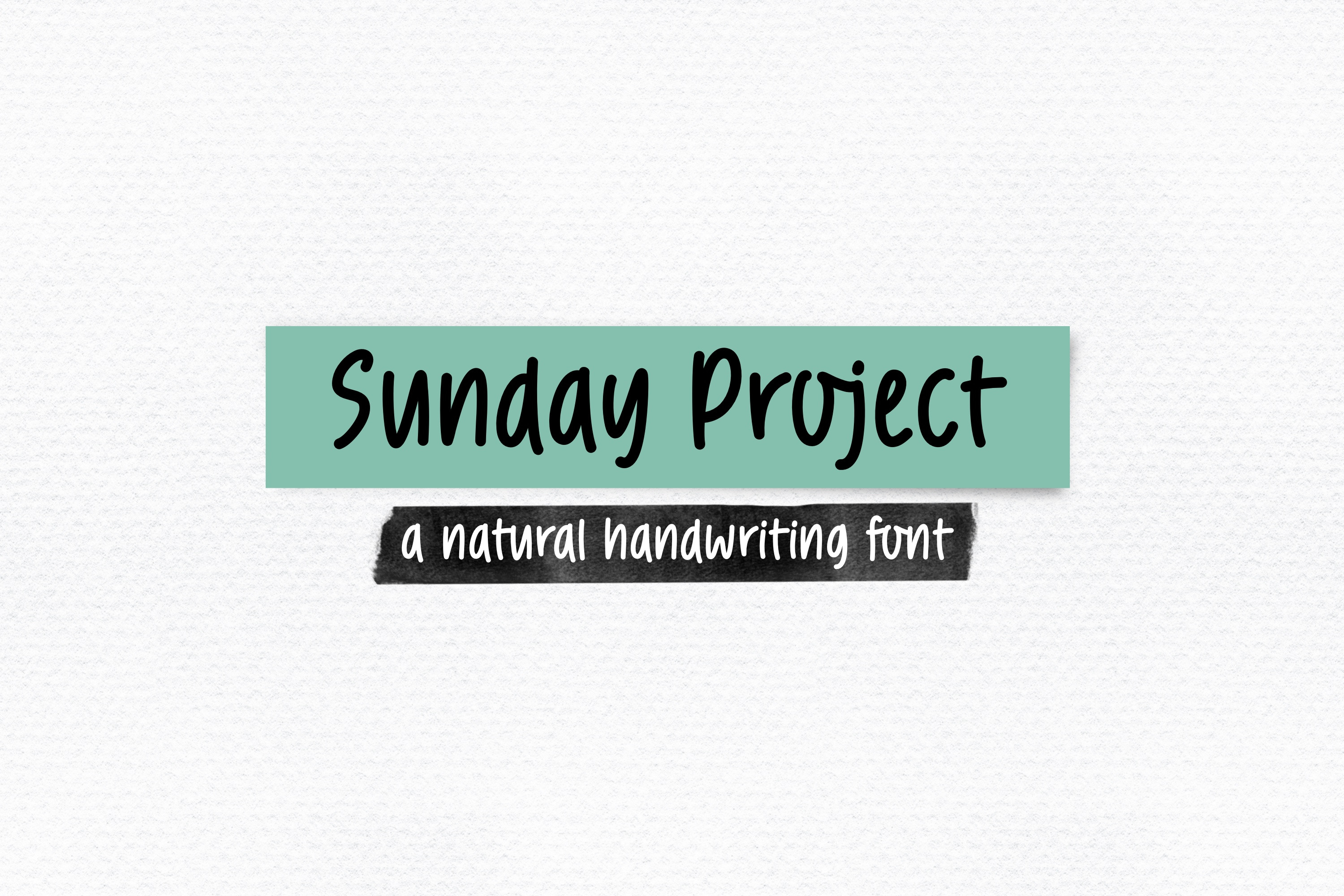
Sunday Project - handwriting font
Sunday Project, a natural handwriting font. (This font is English only, no accent characters) You can use this font in various projects - blog posts, digital planner, invitations, greeting cards, planners, photo albums, decorations and much more. Thank you :)